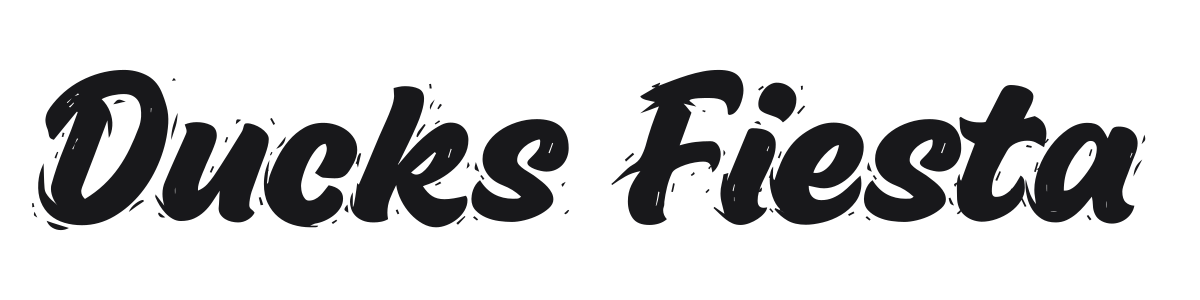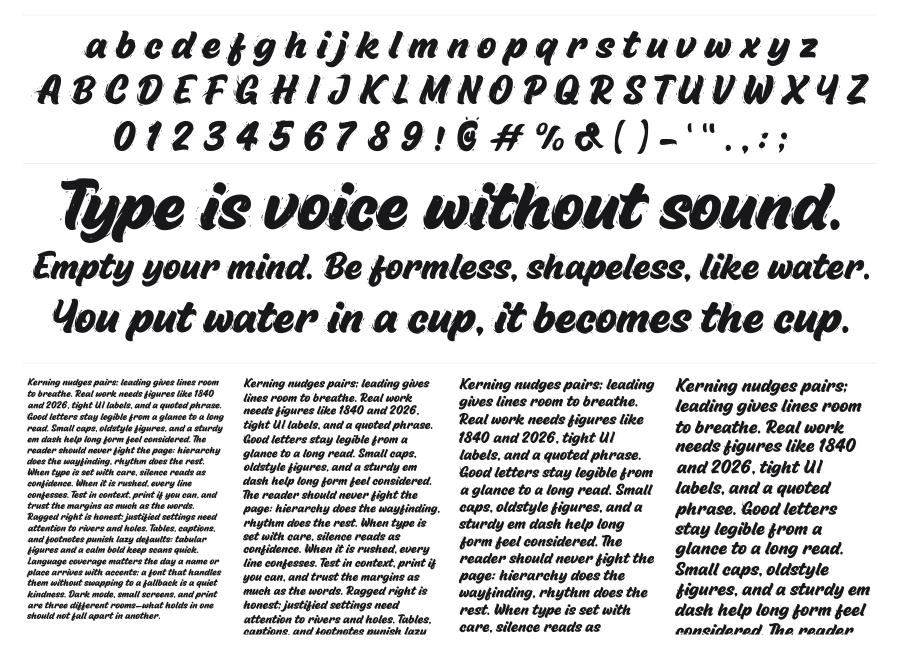
Ducks Fiesta
Ducks Fiesta is a bold brush script with a lively forward slant and rough inky texture that makes it feel like it was painted in one confident stroke. The high contrast between thick and thin strokes gives it real typographic weight, while the bristle texture keeps it from ever feeling slick or corporate. It belongs on posters, packaging, and anywhere a design needs raw, handmade energy.